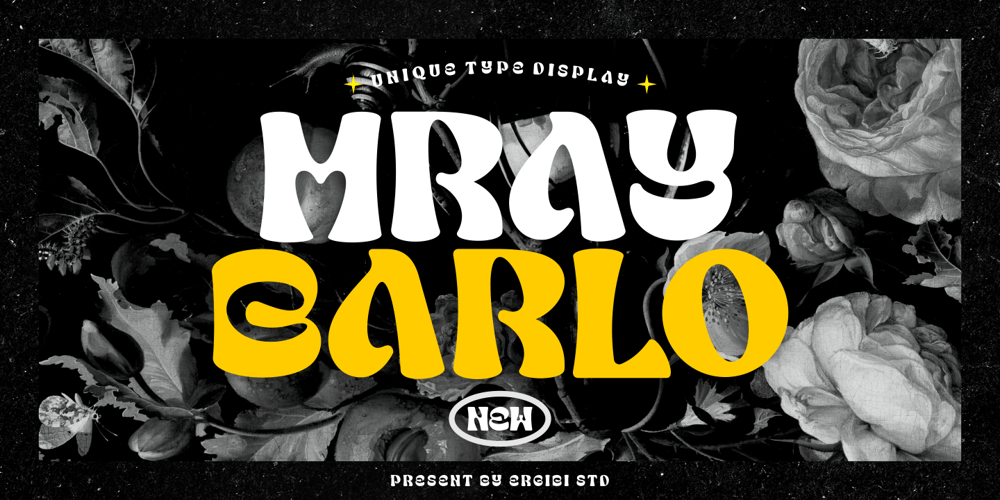
Mray Barlo Font Family was designed by Riyadh Rahman and published by Ergibi Studio. Mray Barlo contains 1 styles and family package options. MRAY BARLO is a typeface display that makes us feel nostalgic! It brings back the 60s to 70s vibe with a fun, retro typeface, with a uniquely crafted touch to each letter.The many alternative characters in this font add a unique style making this typeface stand out from the usual display fonts, perfect for headlines, logos, posters, packaging, T-shirts, coffee shops, restaurants, magazine headers, signs or gift/post cards, cafe and wedding or any kind of advertising purposes.What’s Included : MRAY BARLO Standard glyphs Ligatures International Accent Works on PC & Mac Simple installations If there is a problem, question, or anything about my fonts, don’t hesitate to ask!Big Thanks ~ Ergibi Studio